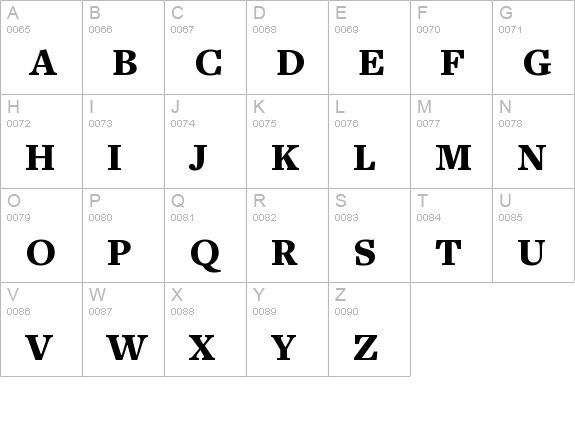
FreightText Black is a maximum-weight, dramatic variant in the FreightText typeface family \xE2\x80\x94 well suited to maximum-impact headlines, posters, and packaging.
FreightText Black is a sophisticated and elegant font that exudes a sense of strength and professionalism. With its bold and commanding presence, this font is perfect for headlines, titles, and other design elements that require a striking impact. The clean lines and sharp edges of FreightText Black make it a versatile choice for a wide range of design projects. What sets FreightText Black apart is that it is available for free download at FontsMarket.com. This means that you can easily access this high-quality font without any cost, allowing you to enhance your designs with a premium typeface without breaking the bank. Whether you're working on branding materials, posters, or web graphics, FreightText Black is sure to make a bold statement and elevate your design to the next level. Download FreightText Black today and take your designs to new heights!